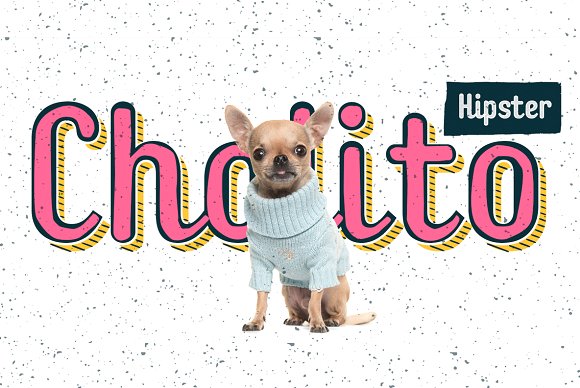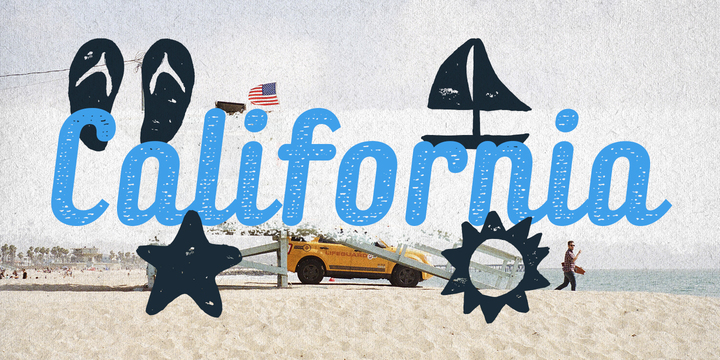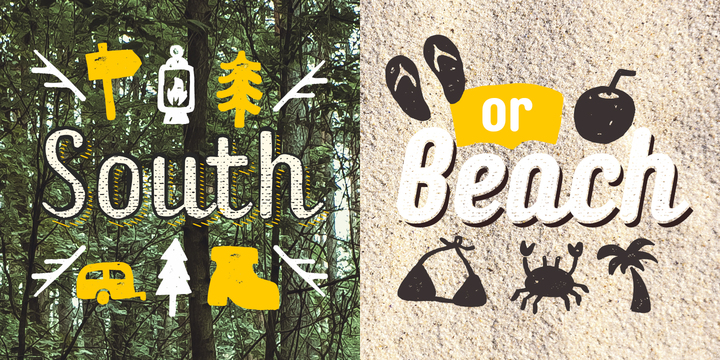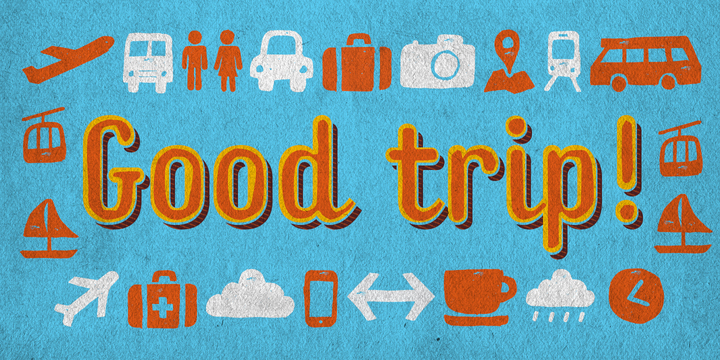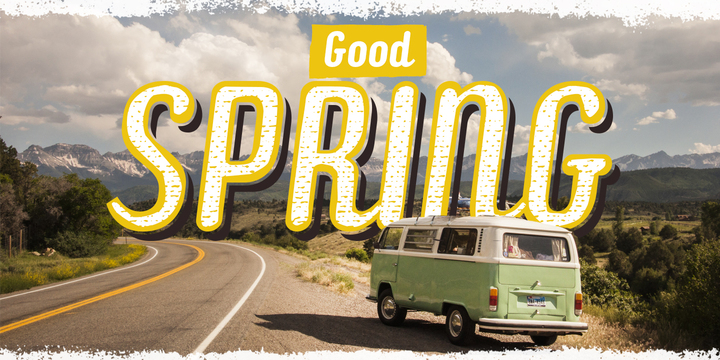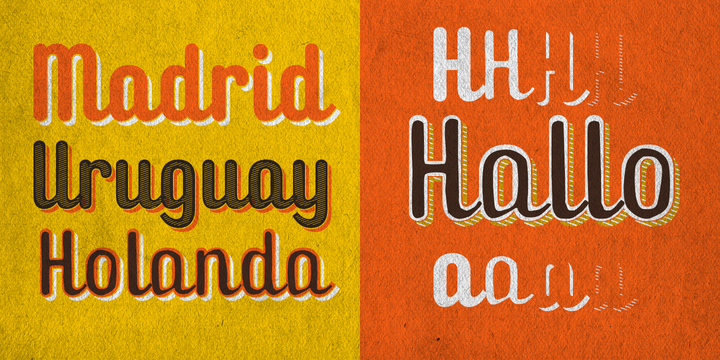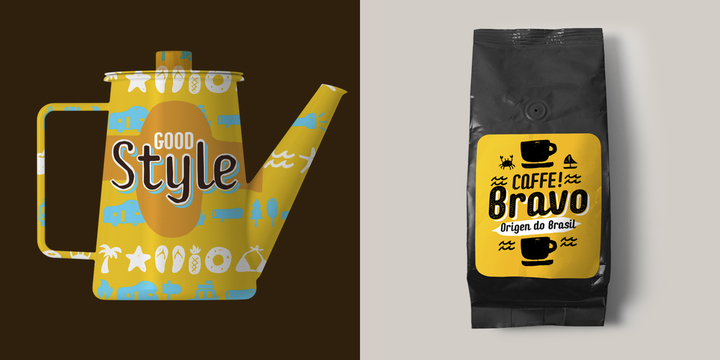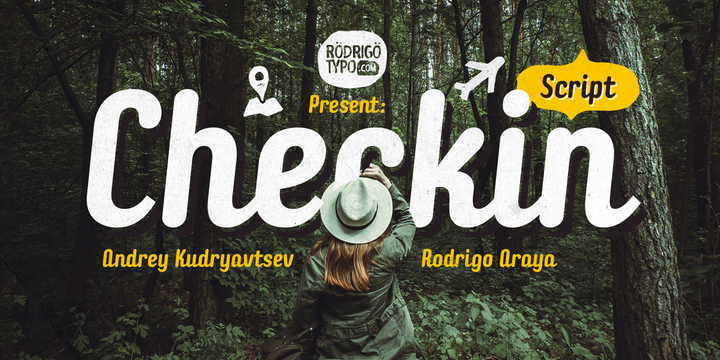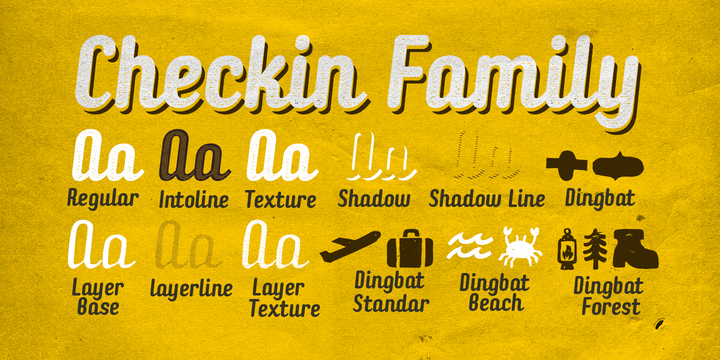
Checkin Script Font Family
It is a typography that has as concept principal of Traveling to Know, special for Tourism Agencies. It contains 4 set of Dingbat, which is divided into Ornaments, Forest, Beach, Standar, in addition to Layers to make a much more entertaining title.